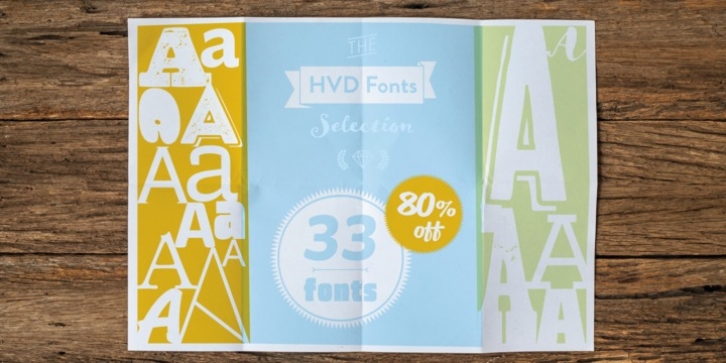
HVD has reigned as one of the most popular foundries on MyFonts for years with old favorites topping the Best Sellers list and new releases leading the pack in Hot New Fonts. In celebration of his hugely popular and widely ranging library, Hannes von Döhren is offering a selection of 33 diverse fonts at an incredible discount for a limited time. The collection includes fonts from all-time bestselling sans serif families like Brandon Grotesque alongside newer, quirky handlettered designs such as Goodlife.